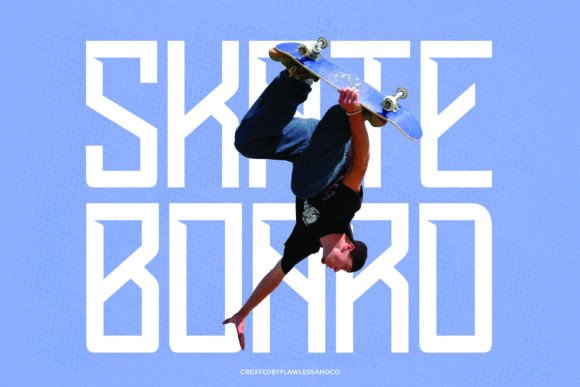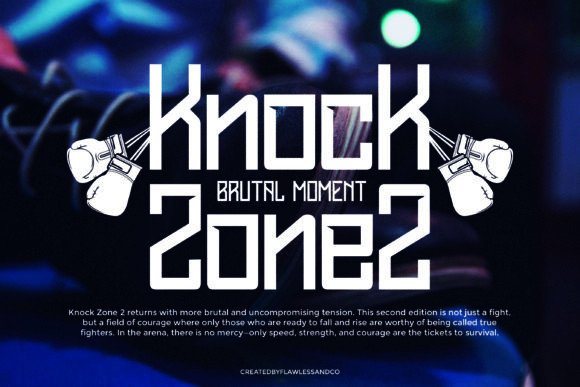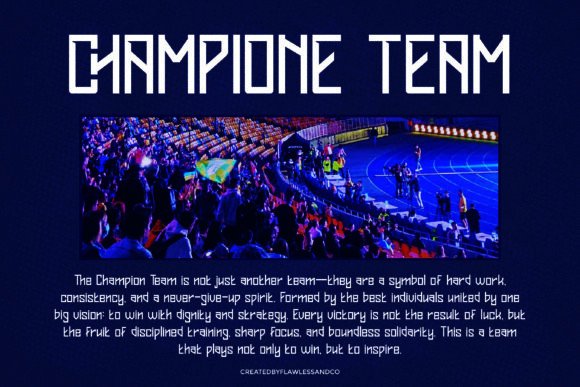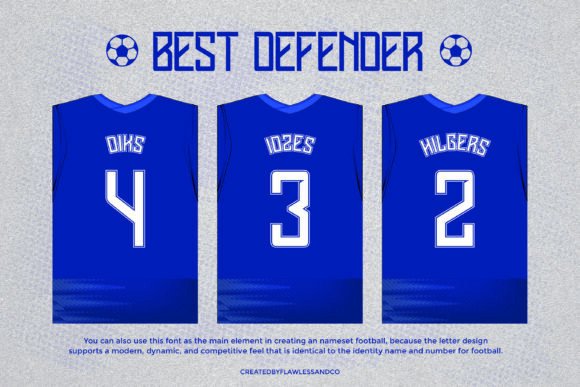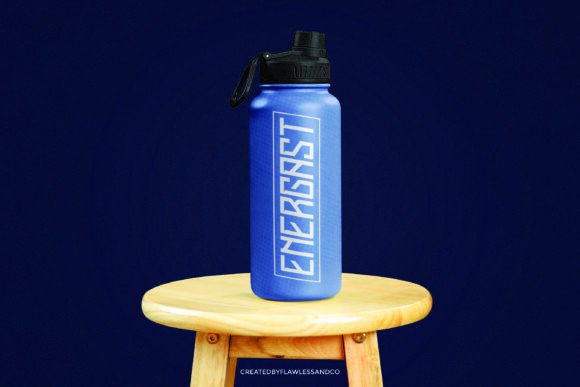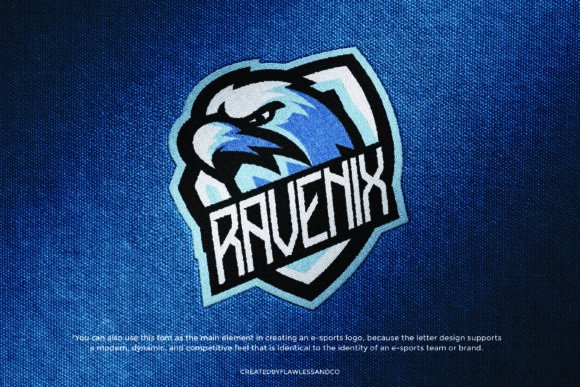
Unleash the Power of Your Designs with Axura Font
Remember the rush of adrenaline you felt when your team scored that winning goal, or the electric atmosphere of a packed stadium? That’s the kind of energy and excitement that the Axura Font embodies. This bold and energetic sport display font is designed to capture the spirit of competition and power, making it the perfect choice for sports branding, team logos, event posters, or activewear design.
As a designer, you’re always looking for ways to add intensity and confidence to your projects. That’s where Axura Font comes in – a versatile and dynamic font that’s sure to make a statement. With its strong geometric forms and dynamic structure, Axura Font is a valuable addition to any designer’s toolkit, helping you create designs that truly stand out from the crowd.
Axura Font Key Features
- Character Set: The font includes a comprehensive character set, covering Latin, Cyrillic, and Greek alphabets, as well as a wide range of punctuation and special characters.
- Unique Characteristics: Axura Font features a unique blend of modern and traditional design elements, with intricate details and subtle texture, making it a standout choice for designers seeking a distinctive look.
Review of Axura Font
Overall, I’m impressed with the Axura font. Its clean design and modern aesthetic make it a great choice for a wide range of applications, from branding to digital products. ✨
- Customizability: Axura offers a range of styles and weights, allowing designers to create a cohesive visual identity.
- Legibility: The font is highly legible, making it easy to read even at small font sizes.
- Flexibility: Axura works well in both digital and print applications.
- ⚠️ Limited language support: Axura only supports Latin-based languages, which may be a concern for designers working on projects that require support for other languages.
- ⚠️ Limited OT features: Axura’s OpenType (OT) features are limited, which may affect its performance in certain applications.
Despite these limitations, I think Axura is a solid choice for designers looking for a modern, clean font. Its strengths outweigh its weaknesses, and I would definitely consider using it in future projects.
For the best results, use Axura Font in combination with bold or italic styles to add emphasis.
Axura Font works well for headings, titles, and short paragraphs.
Experiment with different font sizes to create visual hierarchy in your design.
Alternatives to Axura Font for Designers
Montserrat is a sans-serif font that is highly legible and versatile. It is perfect for use in headings and body text, and its geometric shapes make it ideal for digital interfaces.
Compared to Axura Font, Montserrat has a more modern feel and is more suitable for digital design. It lacks the elegant, handwritten feel of Axura Font.
Playfair Display is an elegant, high-end serif font that is perfect for use in luxury branding and high-end design projects. Its ornate details and refined feel make it ideal for use in print materials and digital interfaces where a touch of sophistication is required.
Compared to Axura Font, Playfair Display has a more formal and luxurious feel, making it suitable for high-end design projects. It lacks the casual, handwritten feel of Axura Font.
Open Sans is a clean and modern sans-serif font that is highly legible and versatile. It is perfect for use in body text and digital interfaces, and its simplicity makes it ideal for use in a wide range of design projects.
Compared to Axura Font, Open Sans has a more minimalist feel and is more suitable for digital design. It lacks the elegant, handwritten feel of Axura Font.